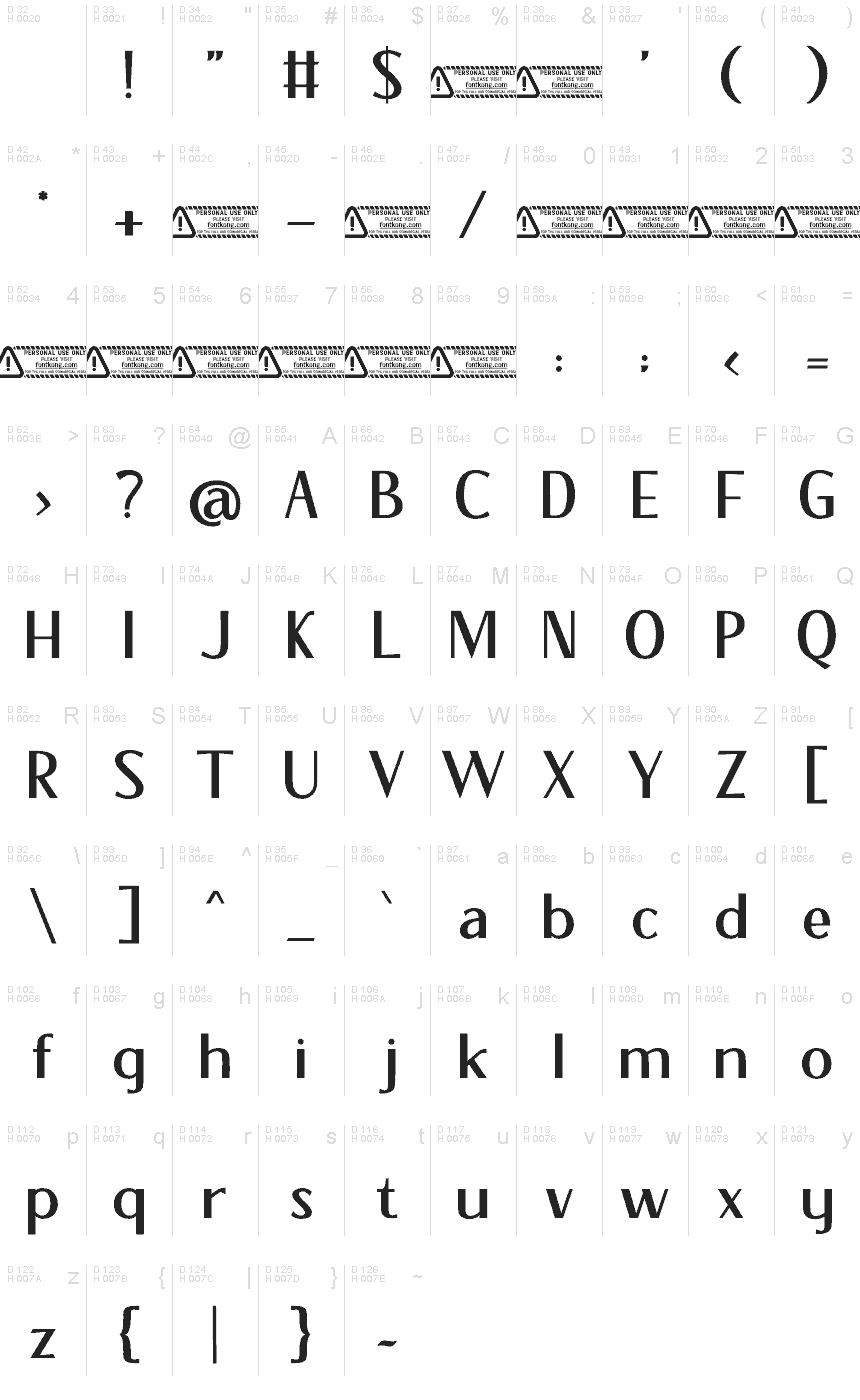
Hoogans font by Kong Font is a clean and modern serif font. Its stylish, elegant, and professional appearance grants it the utmost sophistication to match your designs. It’s easy to use on simple soft copies without any prior graphic design experience for which results will still be great.
This versatile free serif font is perfect for branding designs, journal covers, website landing pages/main headlines, advertisements, product labels/packaging design ideas, printouts (magazines-posters-flyers), blog posts images), pairings with script fonts… among other project types.